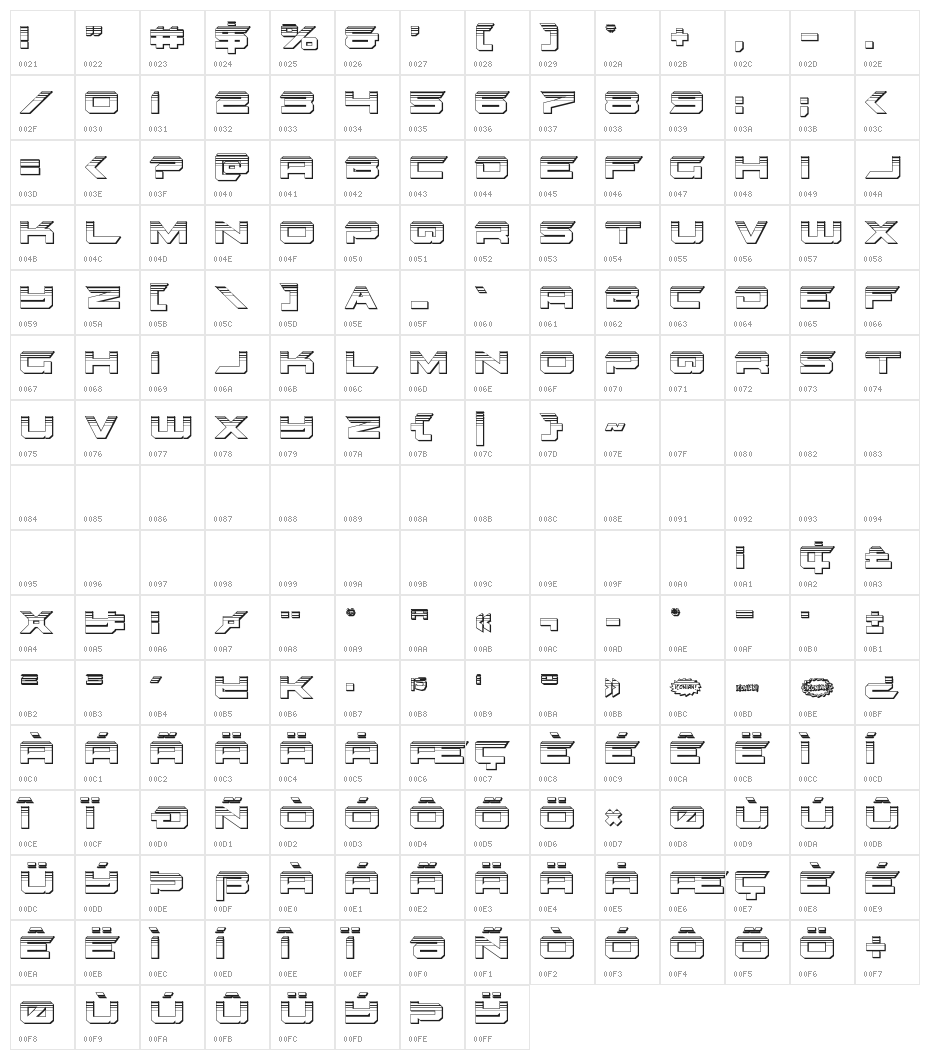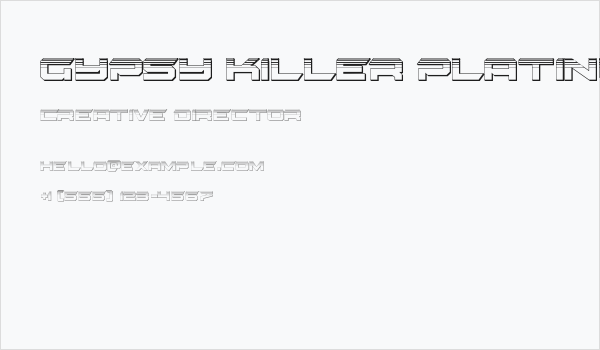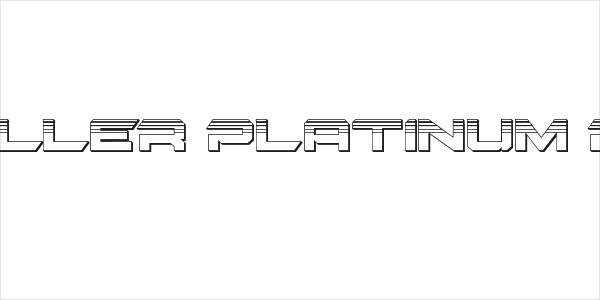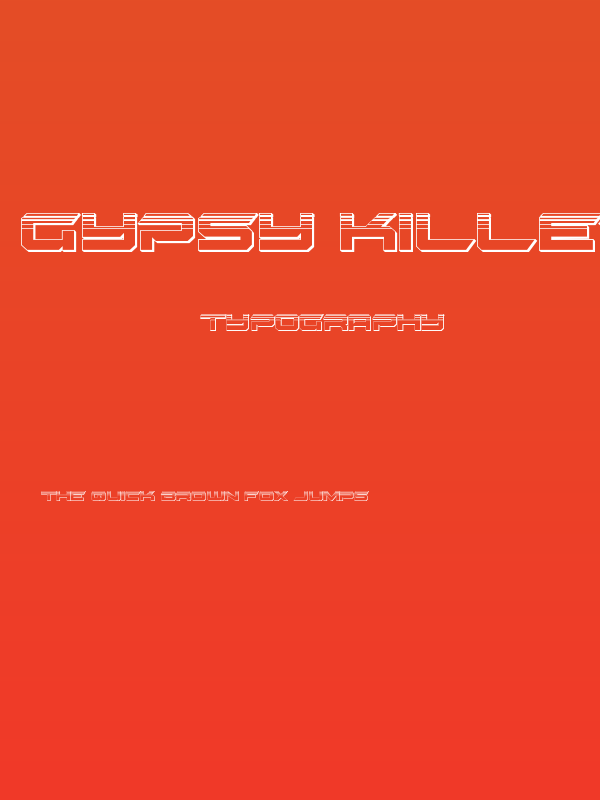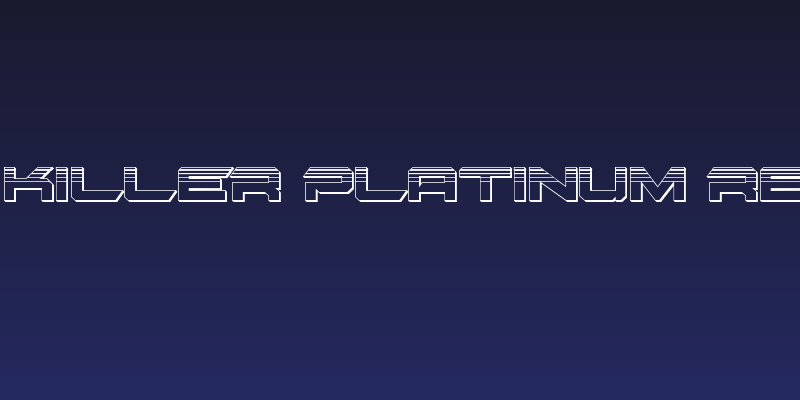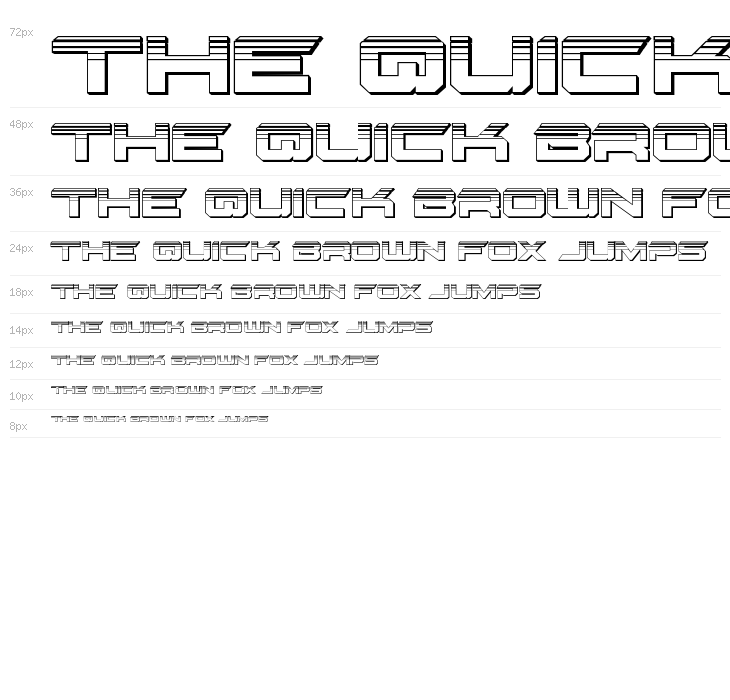
Gypsy Killer Platinum Regular Font
This font features a bold, futuristic design with a distinct geometric structure. Each character is outlined with a double line, creating a three-dimensional effect that adds depth and interest. The uppercase and lowercase letters maintain a consistent style, with sharp angles and clean lines that give it a modern, tech-inspired look. The numerals and special characters are equally stylized, ensuring a cohesive appearance across all text. This font is ideal for projects that require a strong visual impact, such as branding, posters, and digital media.
| Proposed Projects | Ideal for branding, posters, digital media, and any project needing a strong visual impact. |